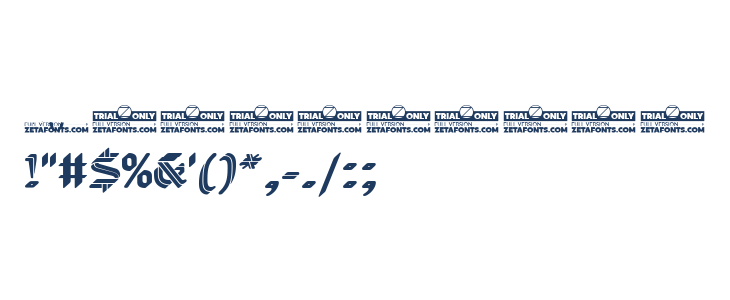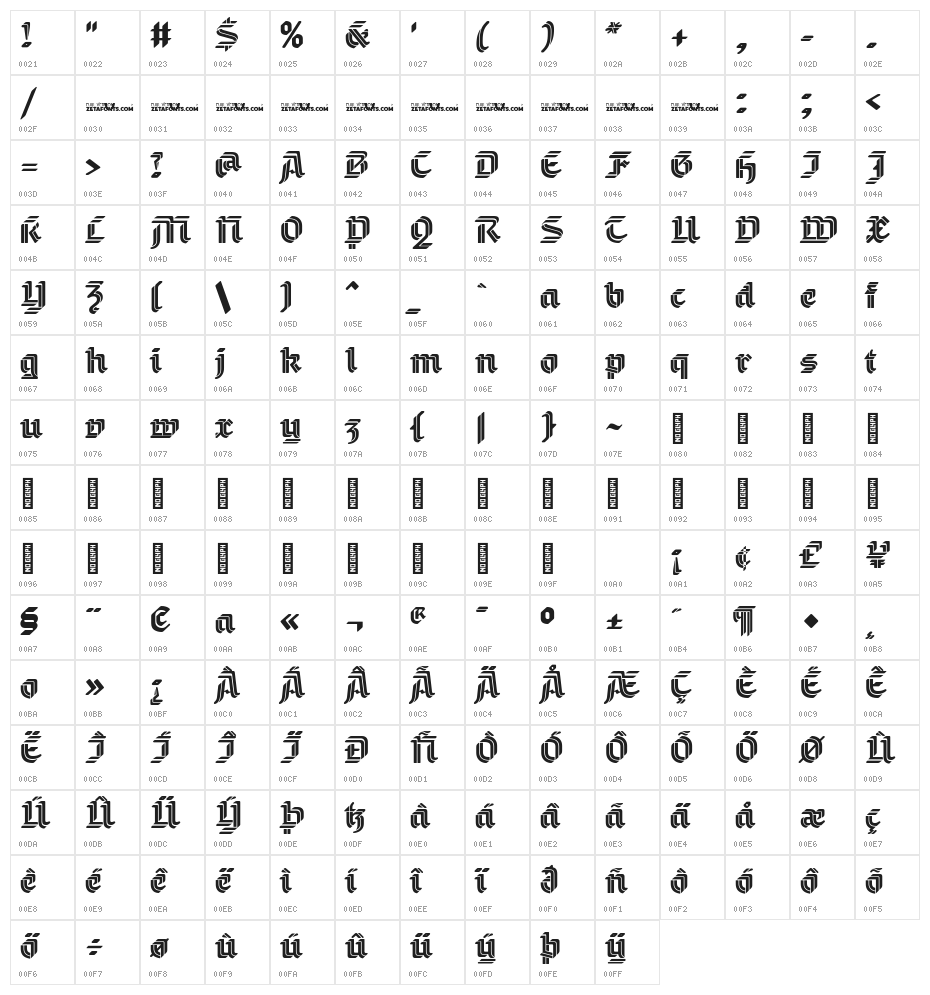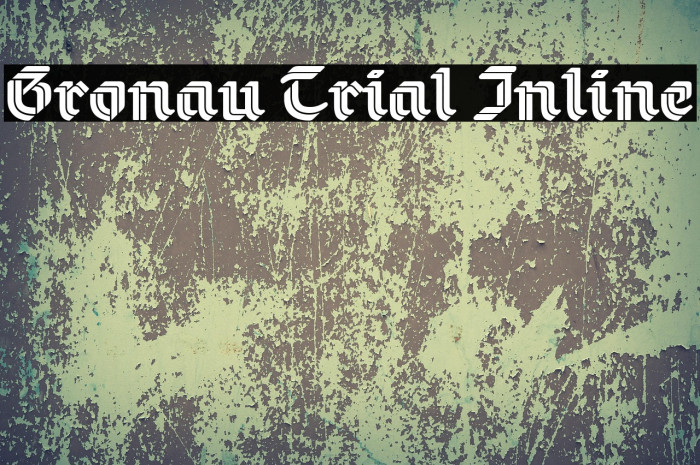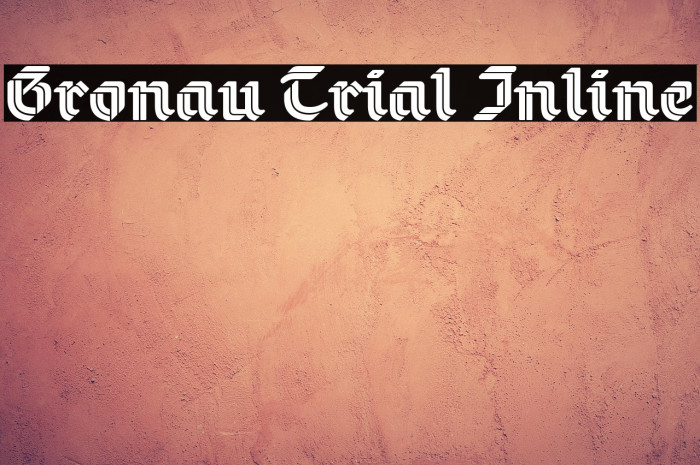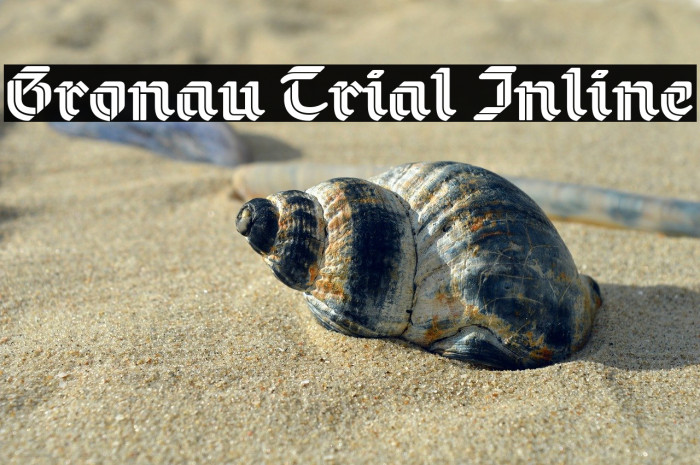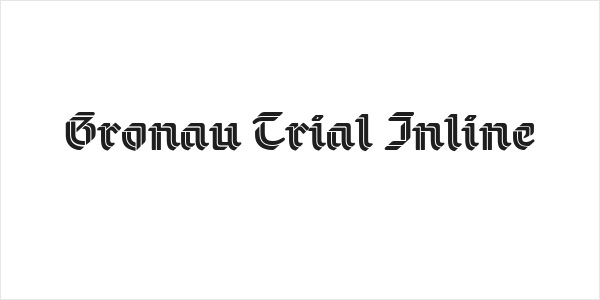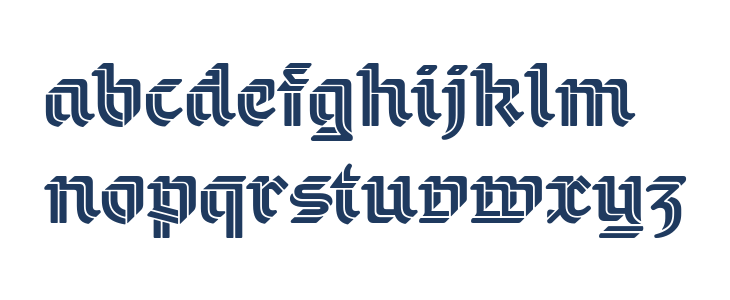
Gronau Trial Inline Font
Gronau Trial Inline Description
This font features a bold and striking design with a distinct inline style, reminiscent of traditional blackletter typefaces but with a modern twist. The characters are angular and geometric, with sharp edges and a strong presence. The inline detail adds depth and complexity, making it stand out in any design. The uppercase and lowercase letters maintain a consistent style, ensuring readability while still being decorative. The numerals and special characters follow the same aesthetic, providing a cohesive look across all text elements.